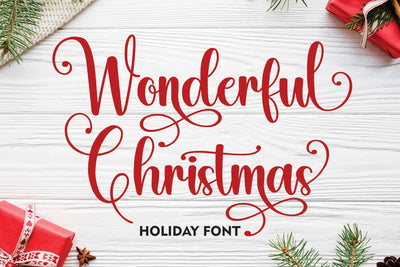
Wonderful Christmas
Wonderful Christmas is a lovely and timeless handwritten font.
It is the best choice for creating eye-catching logos, branding, and quotes.
Every letter has a unique and beautiful touch, which will make your design come alive!
Use this font for any crafting project that requires a personalized look!
Masterfully designed to become a true favorite, this font has the potential to bring each of your creative ideas to the highest level!